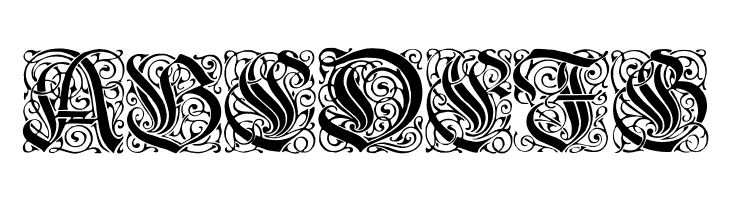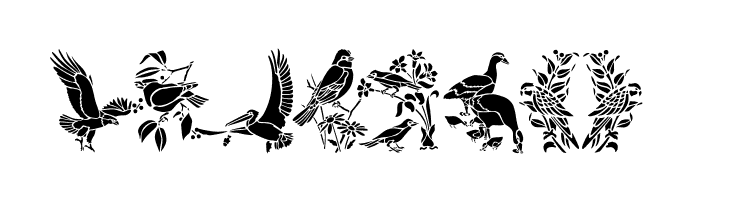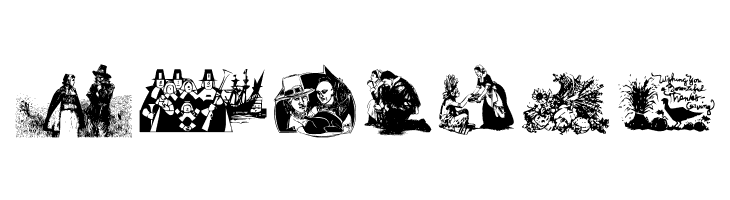
( Dani Foster Herring - dani3d.com/ )
Ornate pictorial font with detailed thematic illustrations for each character.
An ornate Blackletter font with intricate flourishes and a vintage Gothic style.